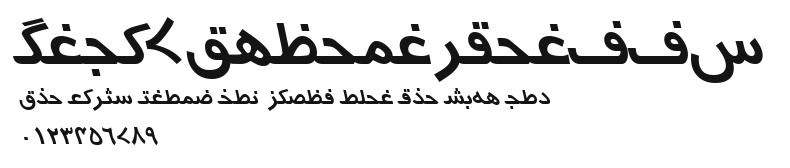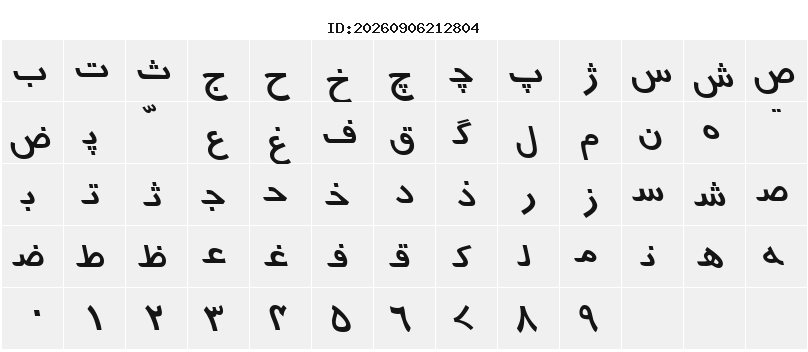
• Font Name: Urdu7TypewriterSSK
• Font ID: Macromedia Fontographer 4.1 Urdu7TypewriterSSK Italic
• Full Font Name: Urdu7TypewriterSSK Italic
• Version: Macromedia Fontographer 4.1 8/15/95
• PostScript Name: Urdu7TypewriterSSKItalic
• Character Count: 101
About Urdu7TypewriterSSK.ttf
Urdu7TypewriterSSK.ttf is a modern, elegant sans-serif font designed for ultimate readability and visual harmony. Perfect for branding, headlines, web design, and print materials.